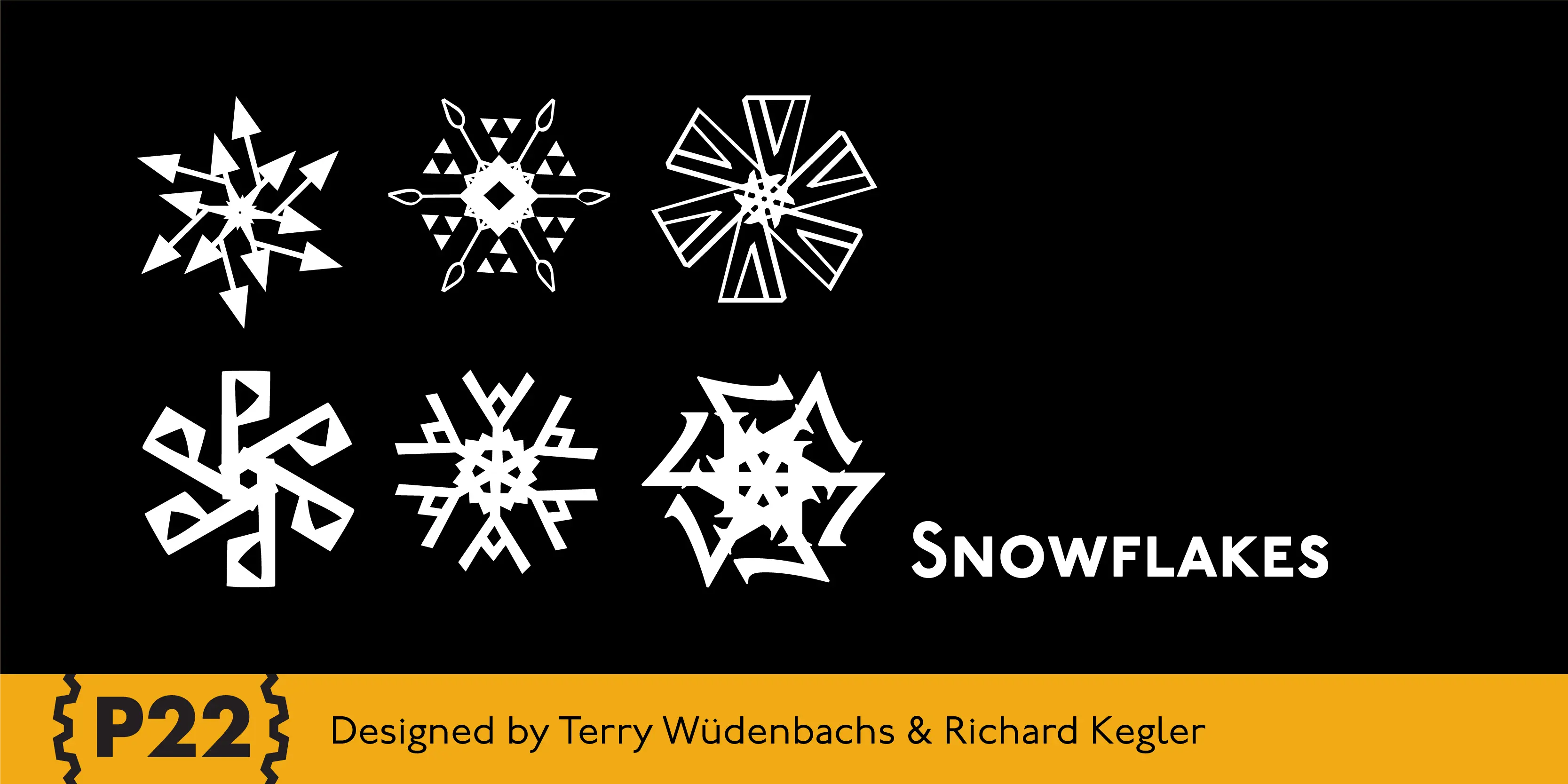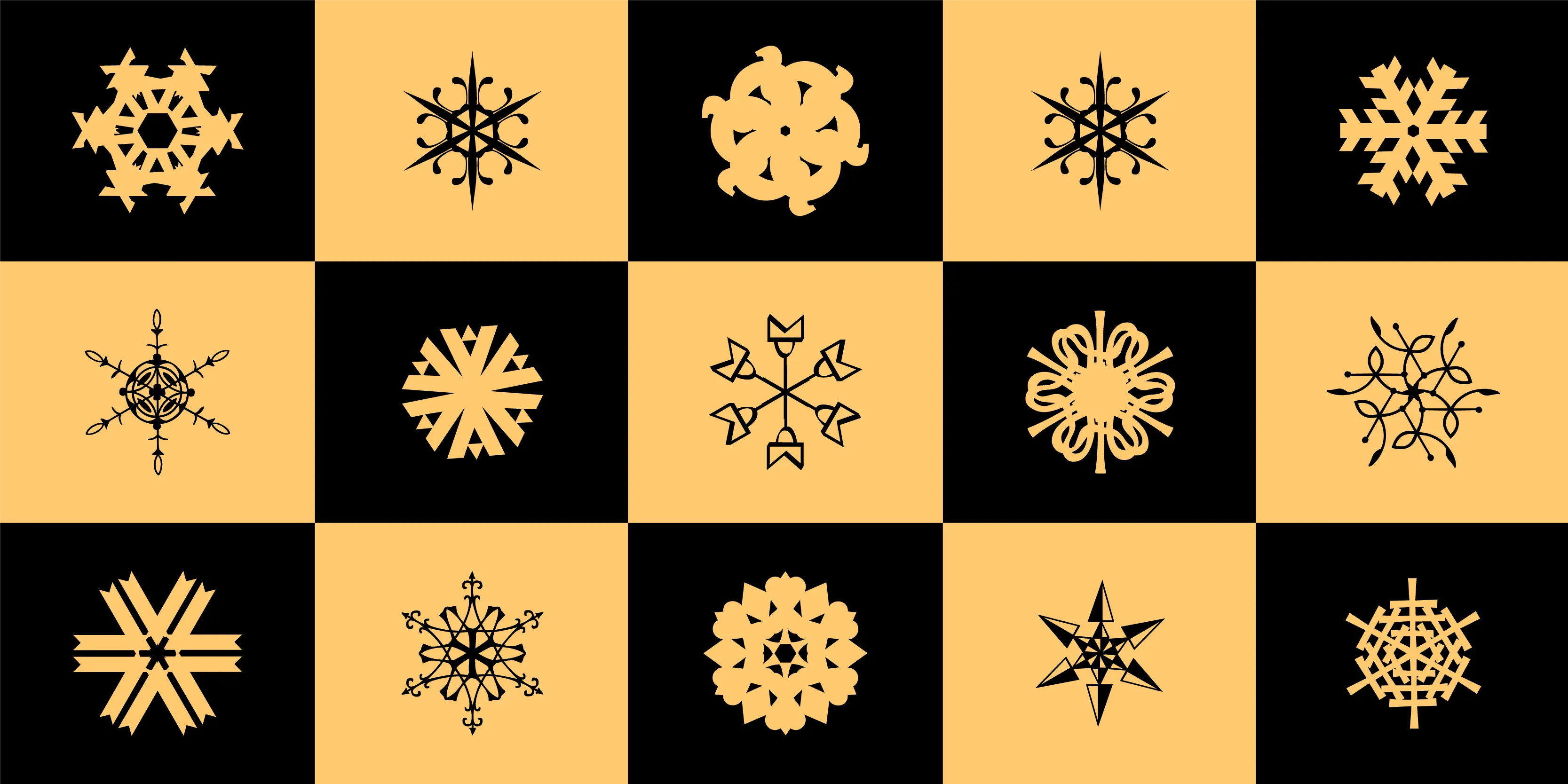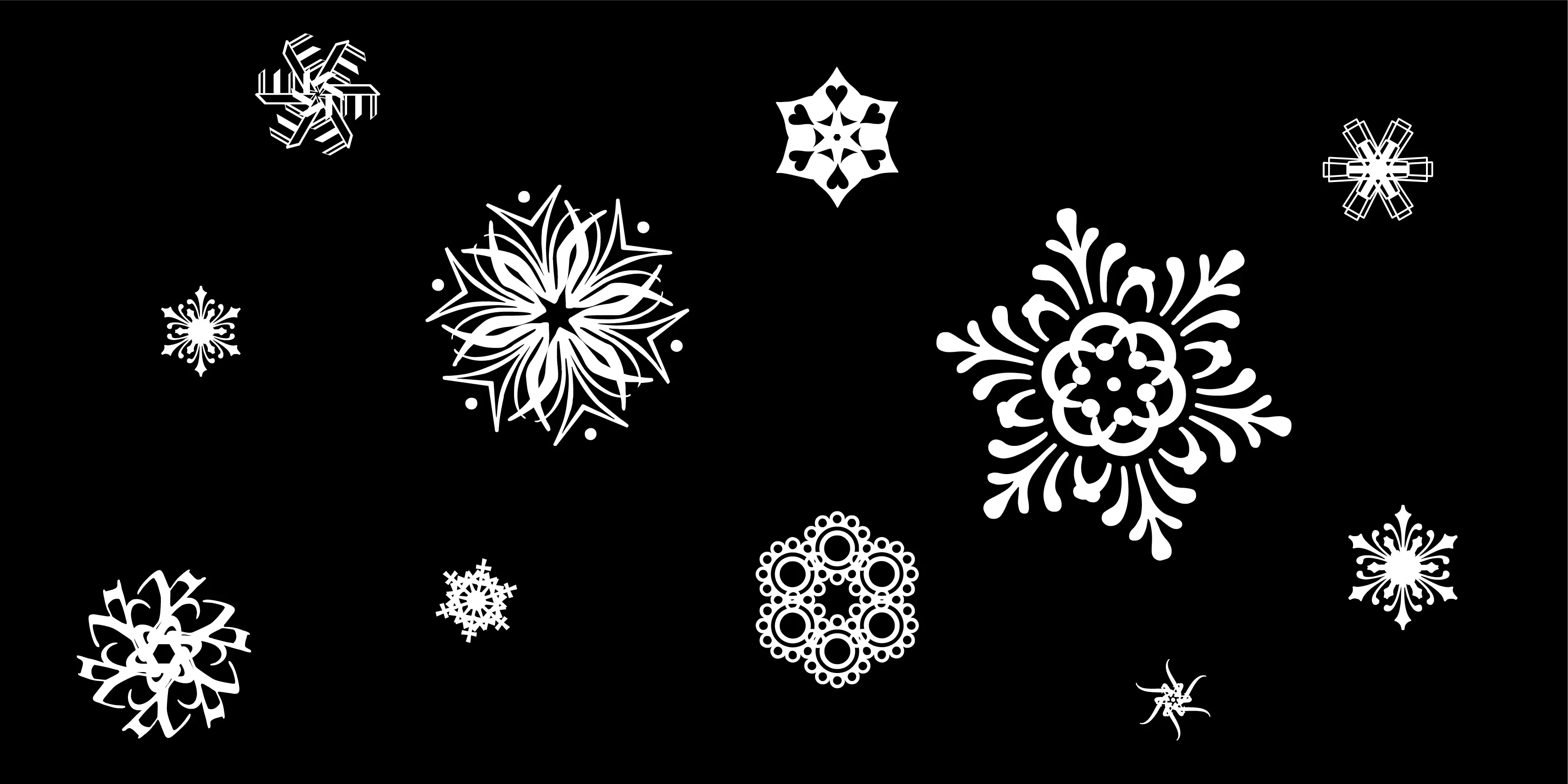
Snowflakes Font
Snowflakes
Many years ago we offered a free font called P22 Snowflakes. In building our new site, a few things fell by the wayside. Rather than just forget about this little gem, we have dusted it off, added a couple dozen more snowflakes to it — we have rebuilt it — made it better… stronger… faster. We even converted it to OpenType format and made some graphics for this webpage with it.